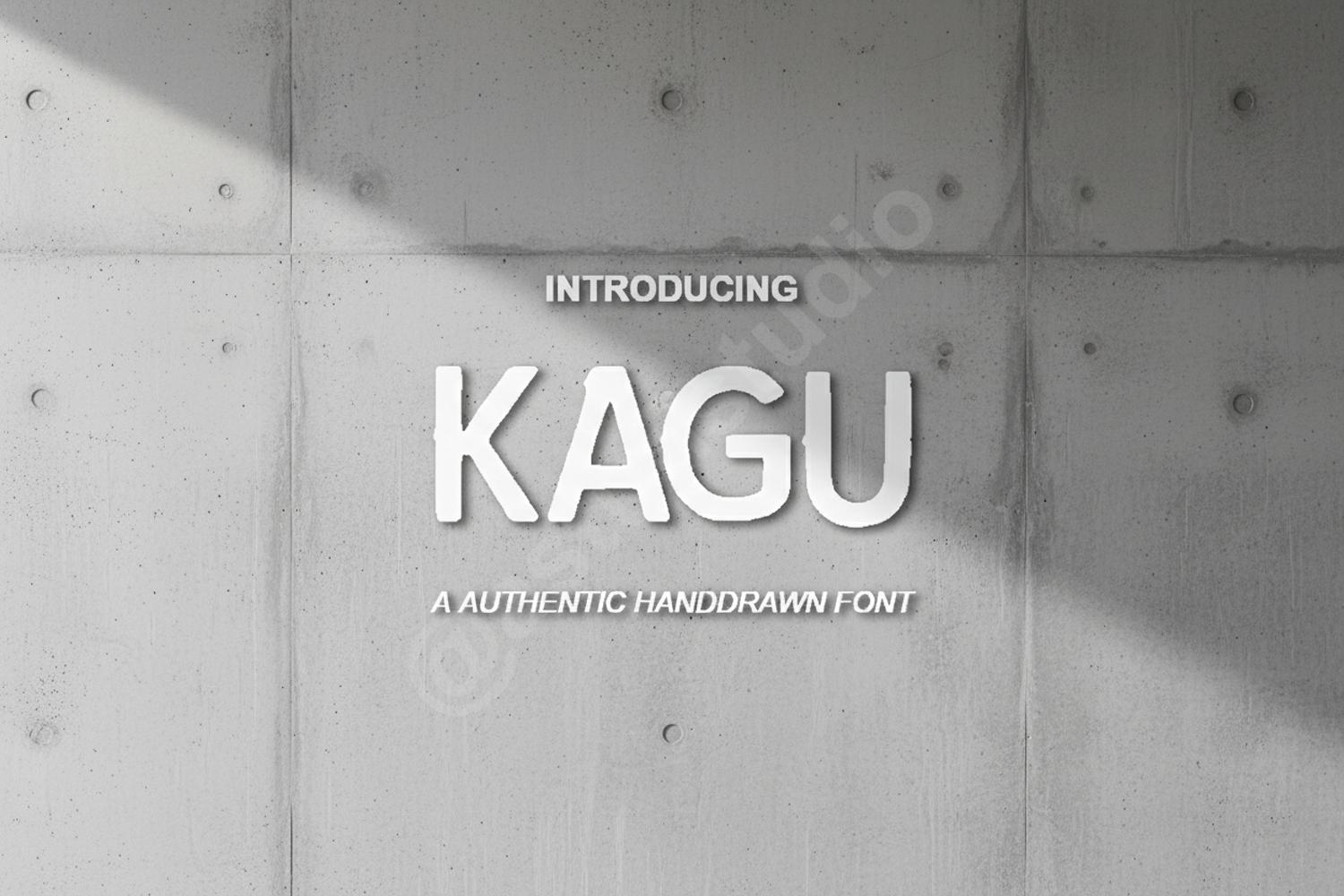
Kagu - Modern Minimalist Sans Serif
Kagu
Kagu is a premium sans serif typeface meticulously crafted to bring a sense of modern elegance and clarity to your creative projects. With its clean lines and balanced proportions, Kagu offers a timeless aesthetic that bridges the gap between contemporary minimalism and functional design. Whether you are building a brand from scratch or refining a professional layout, Kagu provides the versatility needed for high-end results.
- Full set of uppercase and lowercase characters
- Comprehensive numbers and punctuation
- Extensive multilingual support for global accessibility
- Smooth kerning and professional spacing
- Luxury Branding and Identity: Create a sophisticated and memorable visual presence.
- Editorial Layouts: Perfect for magazine headers, subheadings, and body text.
- Digital Design: Optimized for high legibility on websites and mobile applications.
- Social Media Graphics: Elevate your Instagram posts and digital marketing assets.
- Corporate Stationery: Ideal for clean business cards and professional letterheads.